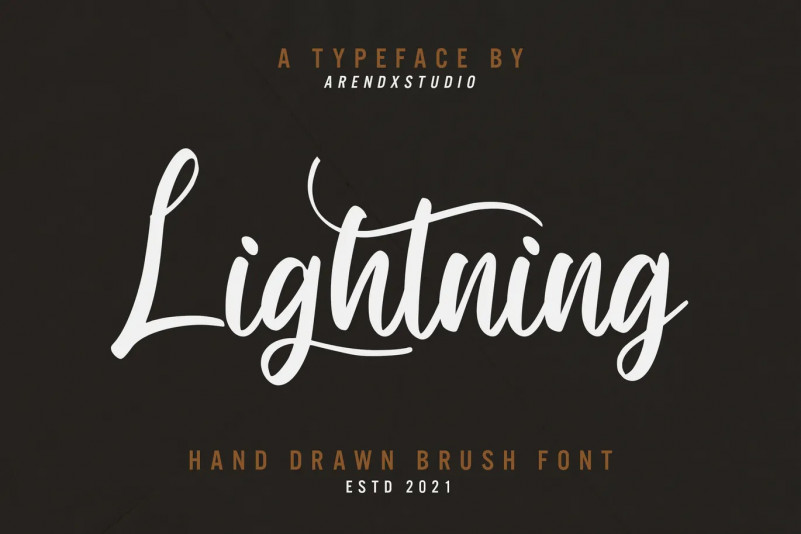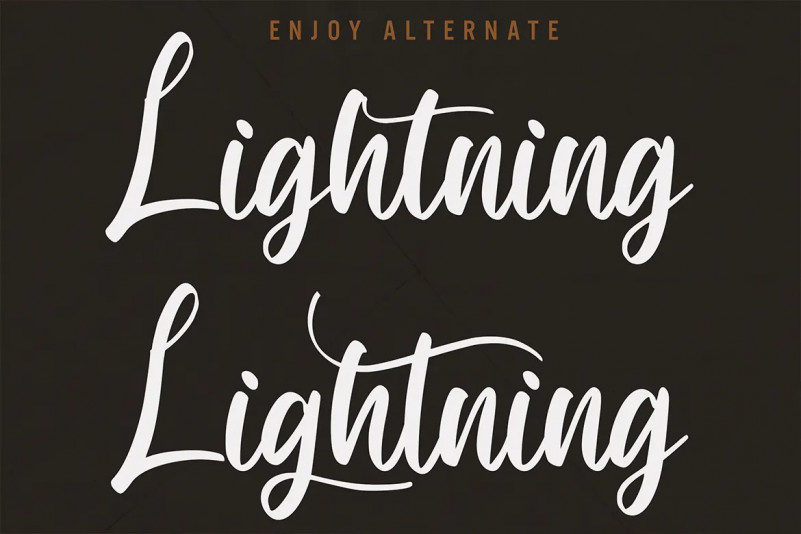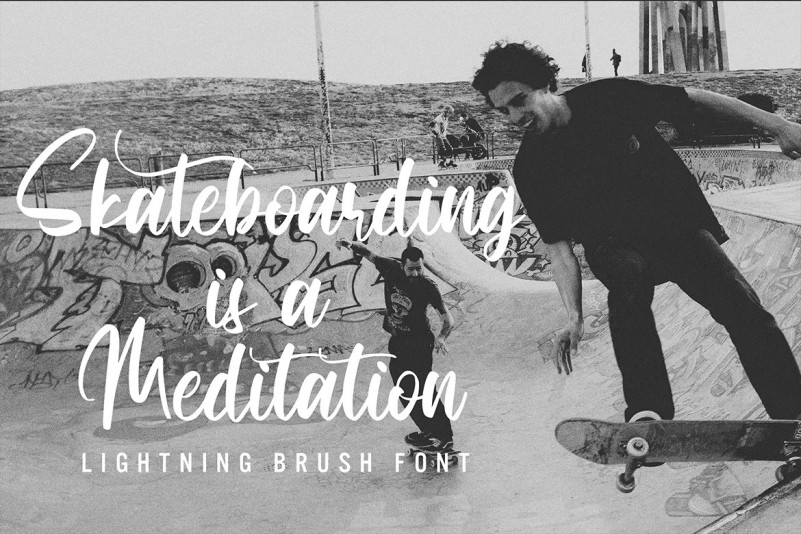
Lightning Font
Lightning – Hand Drawn Brush Font is a font with distinctive handwritten characters perfect for branding projects, logos, wedding designs, media posts, advertisements, product packaging, product designs, labels, photography, watermarks, invitations, stationery, and any project who need handwritten dishes.